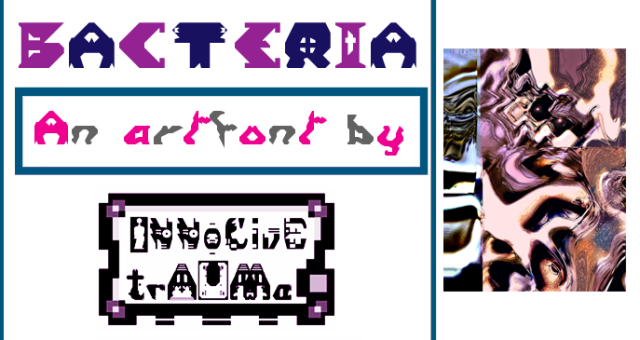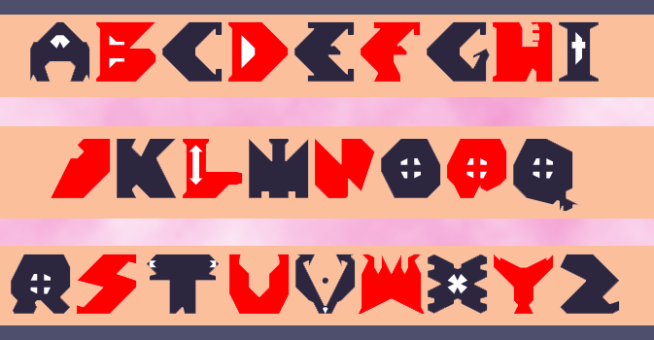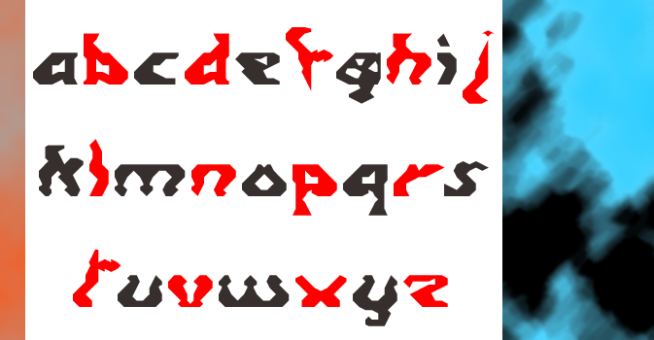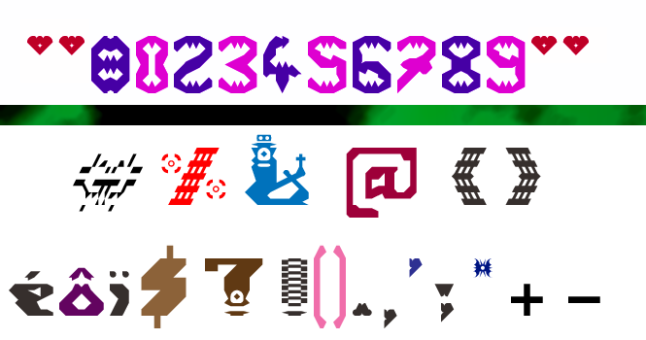
trAUMa 30 / Bacteria
"Bacteria", like all the "trAUMa" series, works at the frontier between Art & Type Design, Figuration & Abstraction, each font is a comprehensive world in which every glyph is a "living" entity. But put together they can produce your messages in the most accurate way.